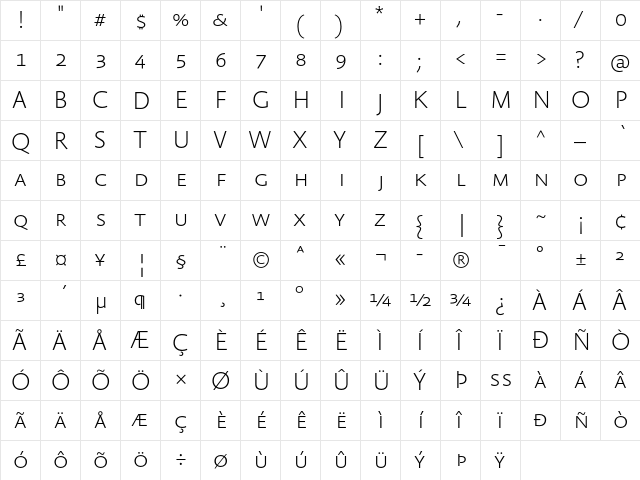
AbsaraSansTF-ThinSC Regular
Design Context for AbsaraSansTF-ThinSC Typeface
AbsaraSansTF-ThinSC is a composed and adaptable typeface that performs quietly and consistently across a wide range of design contexts. The delicate stroke weight brings airiness and refinement to layouts.